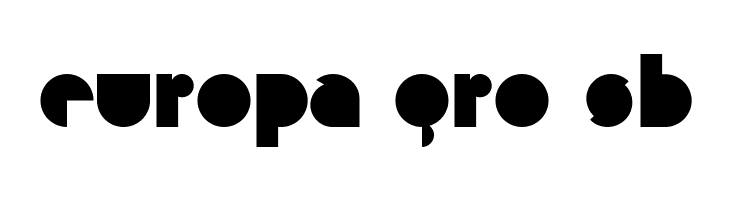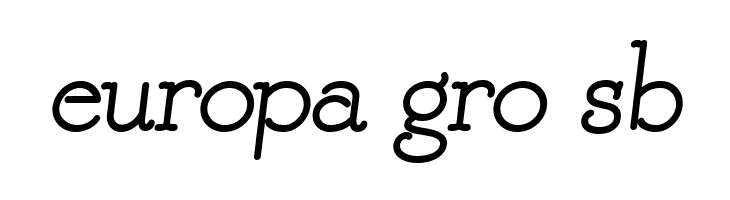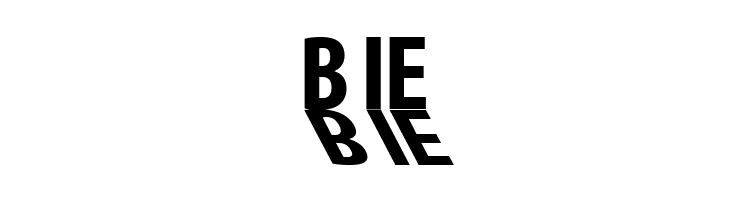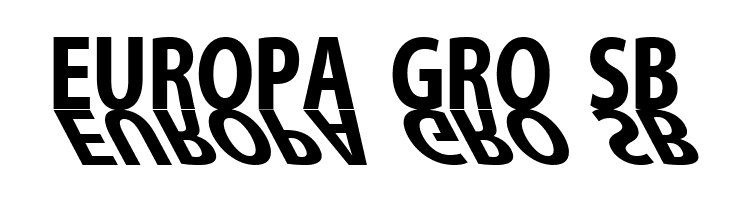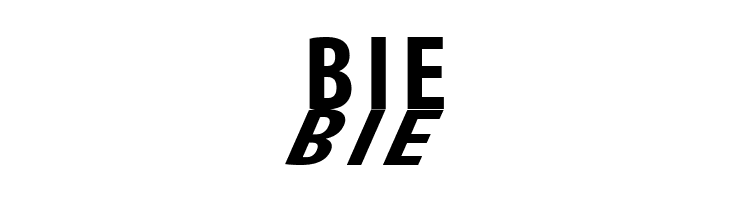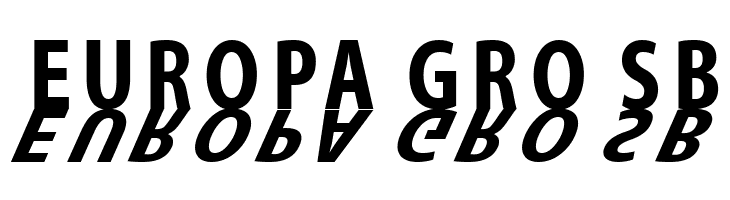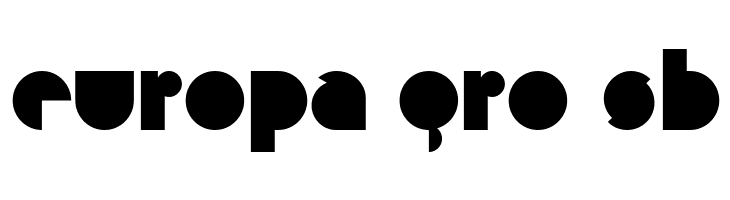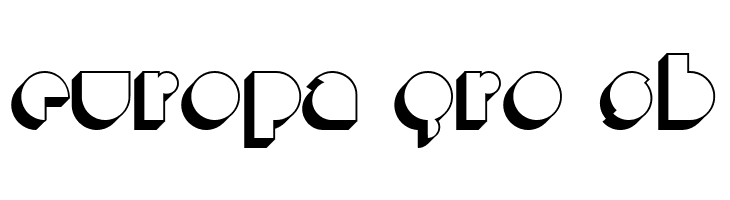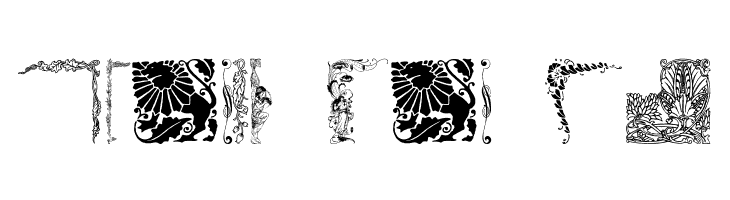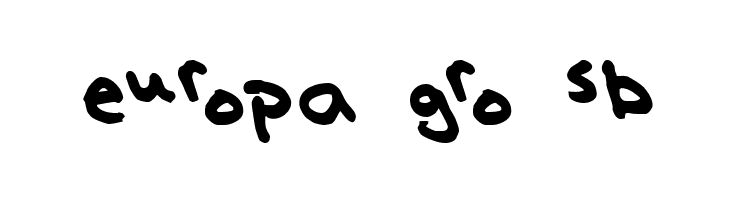
• MirrorImage
An ornate and decorative font with intricate floral and mythical designs.
• MirrorKlein Shadows
A bold, modern font with mirrored shadow effects for a 3D look.
• MirrorKleinShadow Bold
A bold, shadowed font with a modern, geometric style and italicized slant.
• Misirlou
• Misirlou Day
• Misirlou-Regular
A bold, geometric font with rounded edges and uniform strokes.
• MisirlouDay-Regular
A bold, geometric font with a three-dimensional shadow effect.
• Miss Katie
A bold, handwritten font with playful, irregular strokes.
• Mistress Script
A playful and elegant script font with a handwritten style.
• Mistwetter